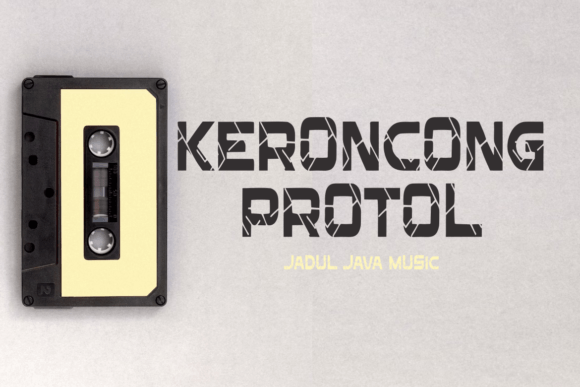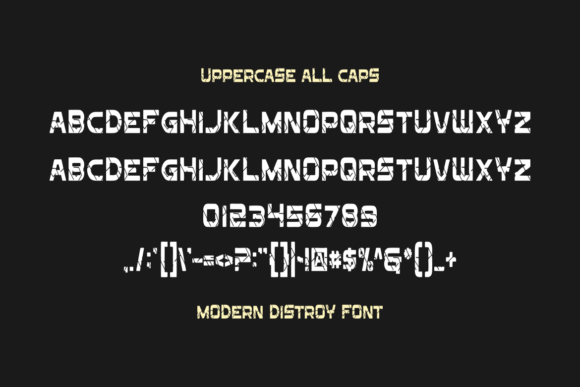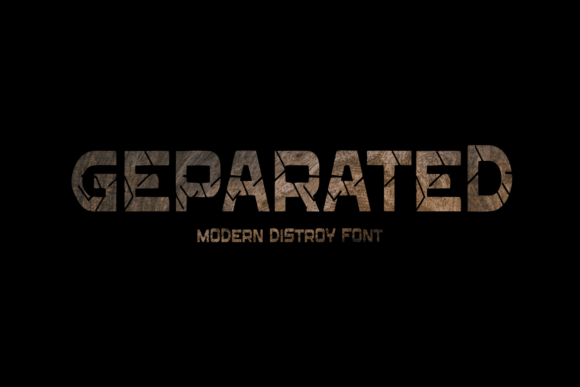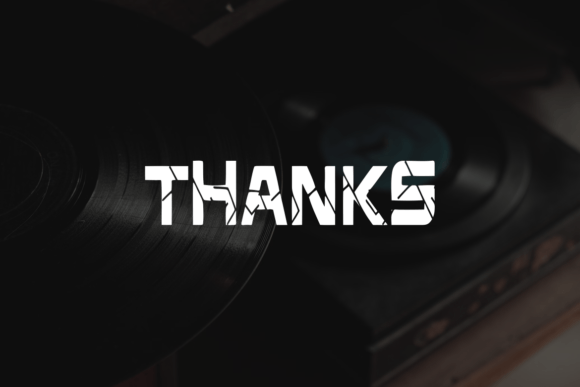
Introducing Geparated Font: A Bold and Distinctive Display Font for Your Branding Needs
In the world of typography, a font can make or break a brand’s identity. A well-crafted font can elevate a brand’s visual presence, convey its personality, and leave a lasting impression on its audience. If you’re a designer, craftsperson, or brand owner looking for a unique and attention-grabbing font, look no further than Geparated Font. In this article, we’ll explore the features, benefits, and applications of Geparated Font, and why it’s perfect for your branding projects.
What is Geparated Font?
Geparated Font is a bold and distinctive display font designed to make a statement. Its unique lettering style and geometric shapes make it stand out from the crowd, perfect for branding projects that require a strong visual presence. Whether you’re creating a logo, designing a sports-themed project, or simply want to add some personality to your typography, Geparated Font is an excellent choice.
Key Features of Geparated Font
- Bold and Distinctive: Geparated Font features bold and geometric shapes that give it a unique and eye-catching appearance.
- Versatile: This font is perfect for a wide range of applications, including logos, sports themes, posters, and more.
- Easily Readable: Despite its bold style, Geparated Font is surprisingly easy to read, making it perfect for headlines, titles, and short paragraphs.
- Customizable: Geparated Font comes with a range of customization options, allowing you to adjust the font to suit your brand’s style and personality.
Applications of Geparated Font
Geparated Font is an incredibly versatile font that can be used across various applications, including:
- Logo Design: Create a bold and memorable logo that stands out from the competition.
- Sports Themes: Add a dynamic and energetic touch to your sports-themed projects, such as jerseys, posters, and social media graphics.
- Posters and Flyers: Use Geparated Font to create eye-catching headlines and titles that grab attention.
- Branding and Identity: Develop a consistent brand identity with Geparated Font, perfect for business cards, letterheads, and packaging.
Why Choose Geparated Font?
With so many fonts available, why choose Geparated Font? Here are just a few reasons:
- Unique Style: Geparated Font offers a fresh and distinctive style that will set your brand apart from the competition.
- High-Quality Design: This font is designed with precision and attention to detail, ensuring a professional finish.
Tips for Using Geparated Font
To get the most out of Geparated Font, here are some tips:
- Use it Boldly: Geparated Font is designed to make a statement, so don’t be afraid to use it boldly and prominently.
- Experiment with Colors: Try pairing Geparated Font with different colors to create a unique and eye-catching effect.
- Mix and Match: Combine Geparated Font with other fonts to create a visually interesting and dynamic design.
In conclusion, Geparated Font is an exceptional display font that’s perfect for branding projects that require a bold and distinctive style. Its versatility, readability, and customization options make it an excellent choice for designers, craftspersons, and brand owners. Whether you’re creating a logo, sports theme, or simply want to add some personality to your typography, Geparated Font is sure to impress. So why wait? Download Geparated Font today and take your branding to the next level!